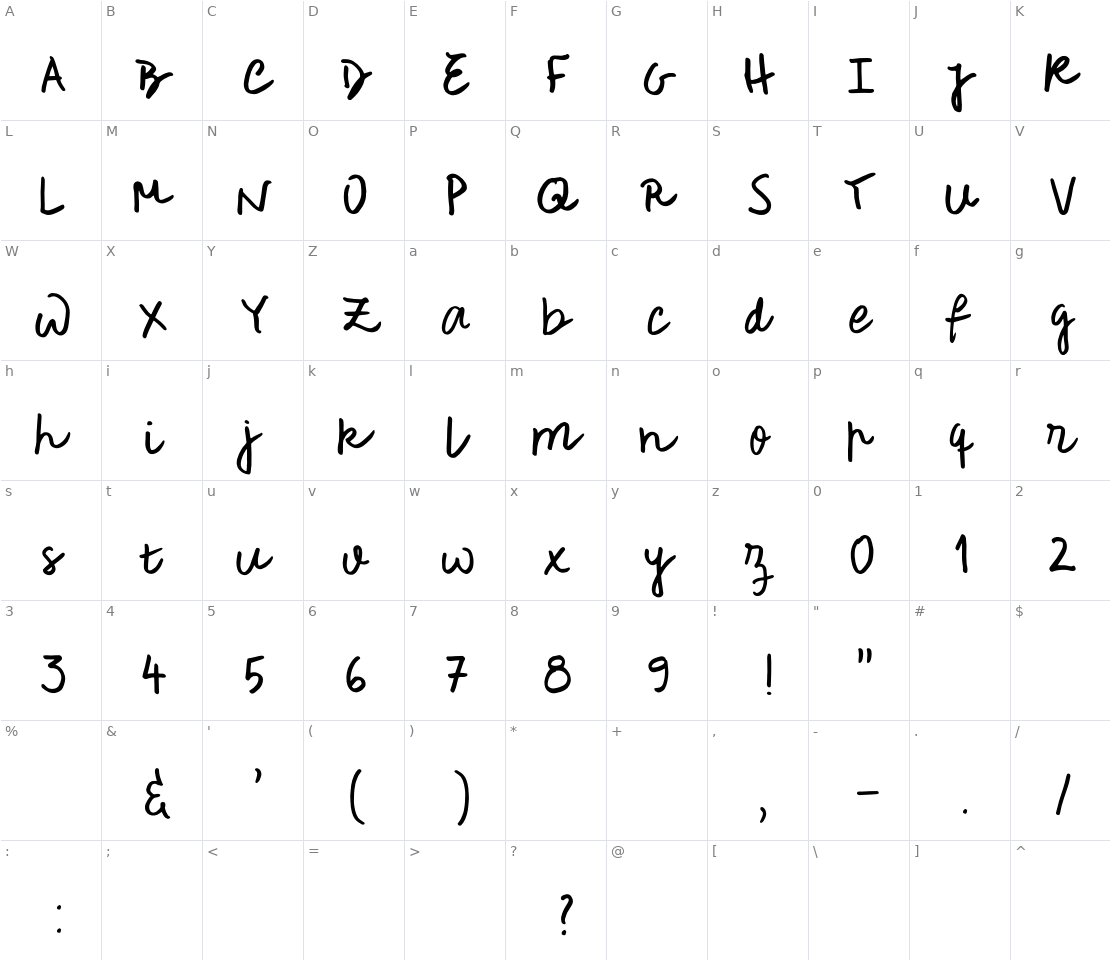
Rough Notes
Rough Notes is a casual handwritten face by Ana that captures the uneven, scratchy quality of quick pen-on-paper jotting. The letterforms feel genuinely informal, with natural stroke variation and rough edges that avoid looking digitally smoothed. A good pick for personal projects, packaging notes, or anywhere you want type that reads like someone actually wrote it.